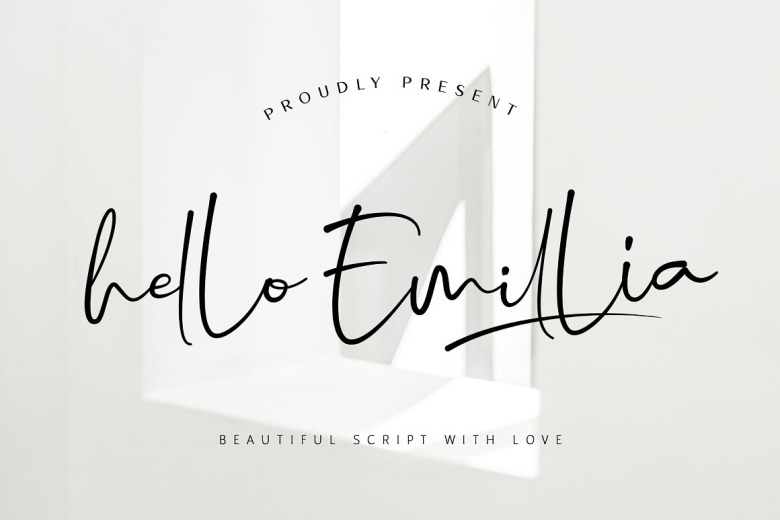
Hello Emillia Font
Hello Emillia is an wonderful signature typeface eye-catching, fashionable, and chill handwritten script font. Hello Emillia is very valuable to additional you handwritten and signature font.
Hello Emillia is perfect for many design needs such as merch, wedding invitation, T-shirts, titles, book covers, social media posts, websites, events, and many etc.